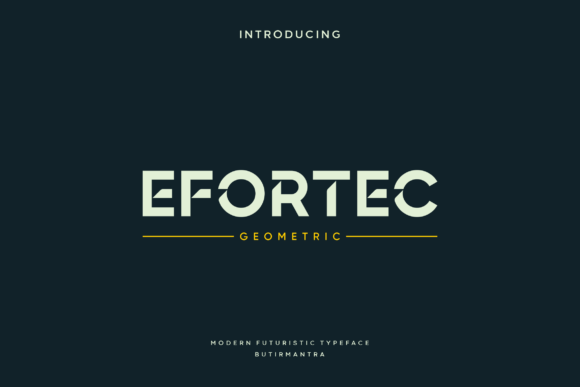
Behold the alluring Efortec Font, a creation by Garismanta that will captivate your designs with its futuristic flair and unmatched sophistication. Step into a realm of limitless creativity, where Efortec's sharp lines and sleek curves ignite your imagination, transforming your digital masterpieces into extraordinary works of art.
This display font is not just a collection of letters, it's a portal to a universe of boundless possibilities. Each character carries a weight of mystery, an aura of enchantment that transports you to distant galaxies and uncharted territories. Whether you're crafting a captivating logo, designing an immersive game environment, or simply adding a touch of intrigue to your social media posts, Efortec will be your steadfast companion.
With Efortec, you're not simply downloading a font, you're unlocking a treasure trove of design possibilities. Explore the depths of your imagination and let Efortec guide you through uncharted territories of creativity. From celestial dreamscapes to dystopian futures, there are no limits to what you can achieve with this extraordinary font.
Efortec's versatility extends far beyond its captivating aesthetics. Its crisp, clean lines ensure readability even at smaller sizes, making it ideal for both print and digital applications. Its carefully crafted characters strike a perfect balance between legibility and artistic flair, ensuring that your designs never fail to leave a lasting impression.
Elevate your designs to new heights with Efortec, a font that embodies the essence of innovation and imagination. Let its otherworldly charm captivate your audience and leave them in awe of your creations. Journey into the realm of boundless creativity and unlock the full potential of your designs with Efortec.